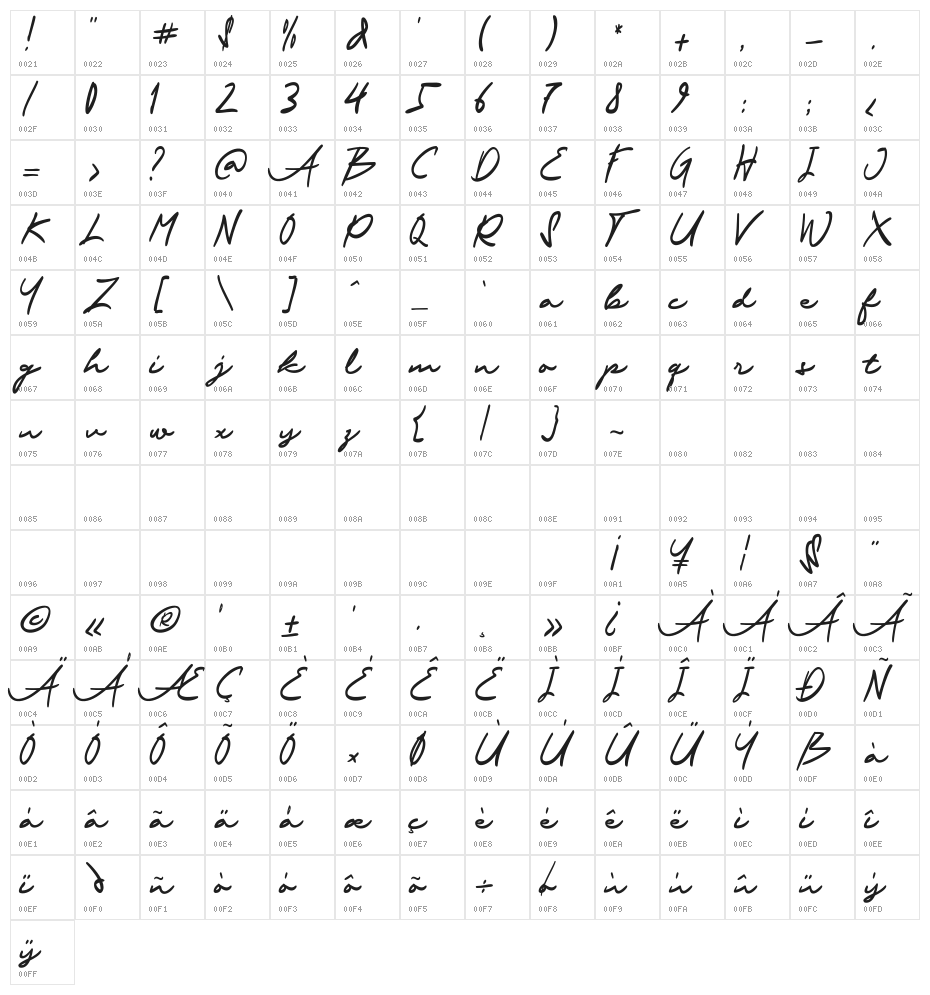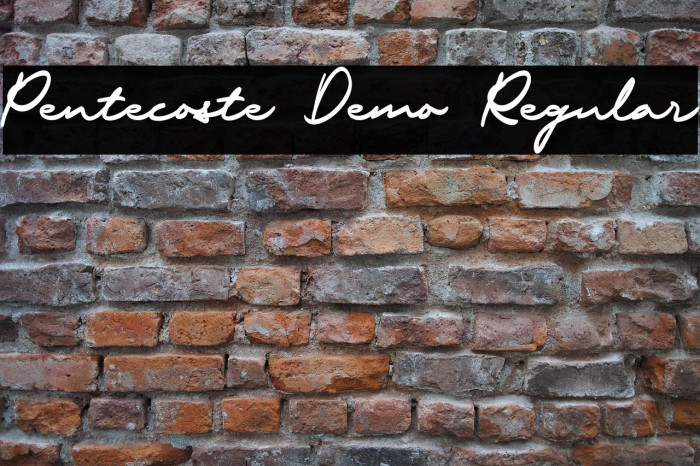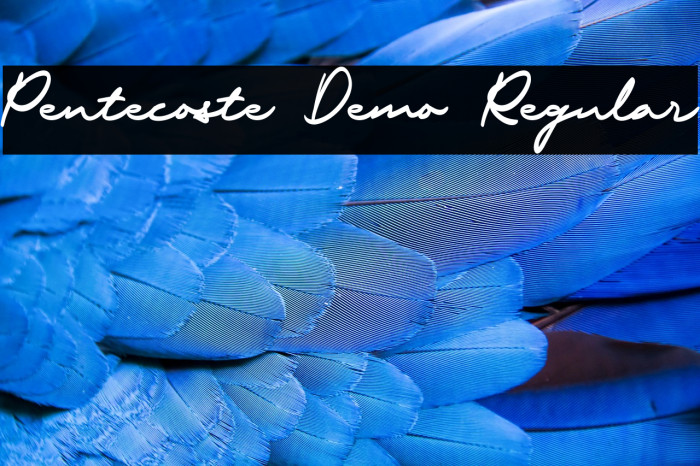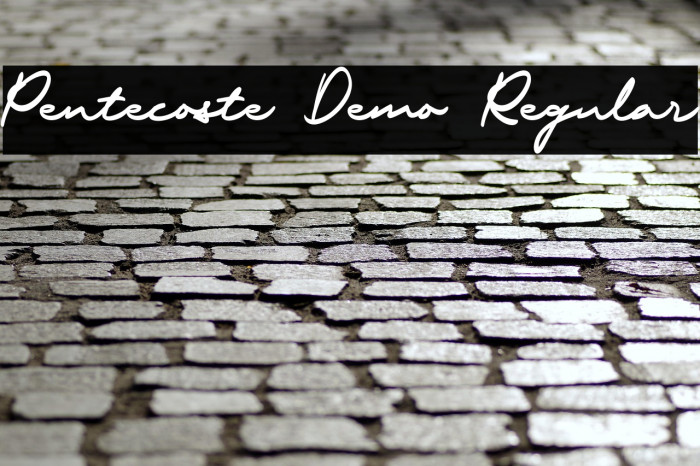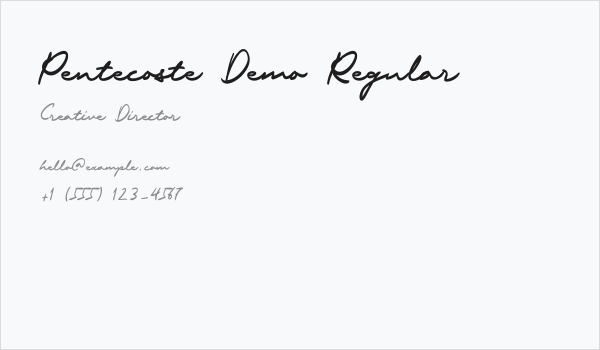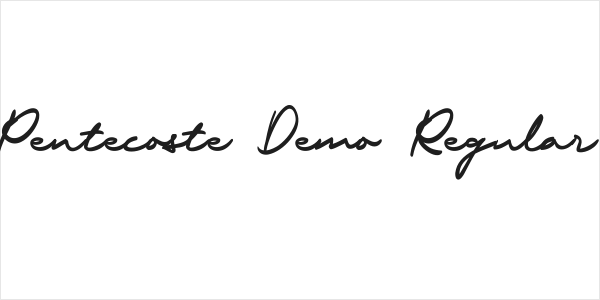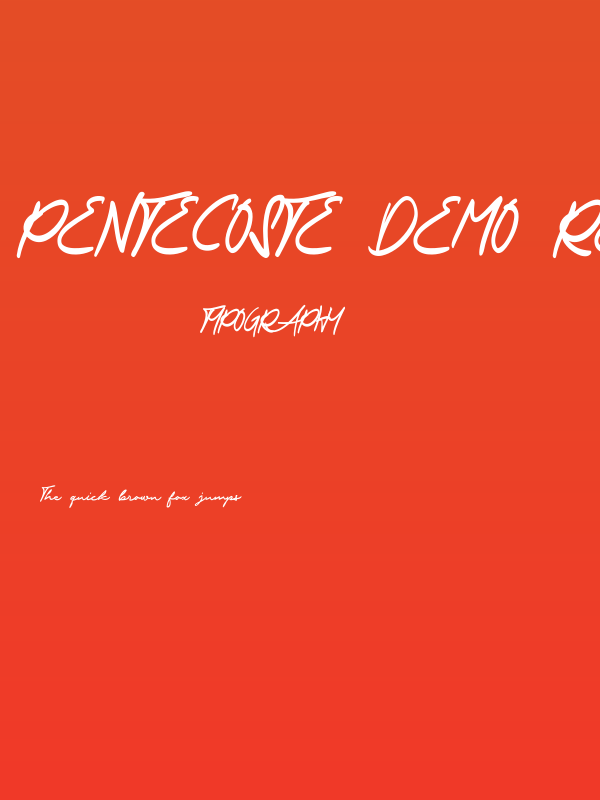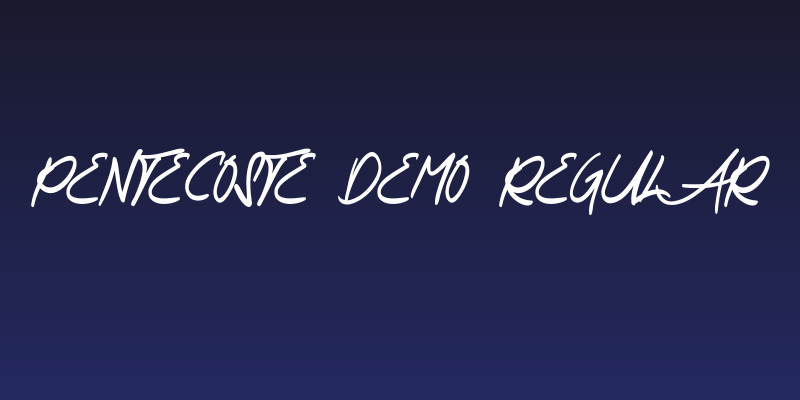
Pentecoste Demo Regular Font
Pentecoste Demo Regular Description
This font features a dynamic and expressive handwritten style, characterized by fluid strokes and a natural flow. The uppercase letters are bold and slightly slanted, giving a sense of movement and energy. The lowercase letters maintain a consistent style, with smooth curves and a casual elegance. Numbers are clear and legible, matching the overall aesthetic. Special characters are integrated seamlessly, maintaining the handwritten feel. This font exudes a personal touch, making it ideal for projects that require a human element.